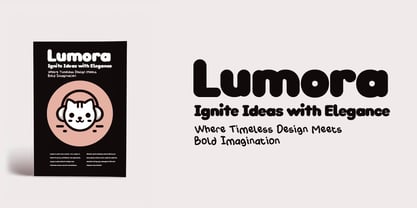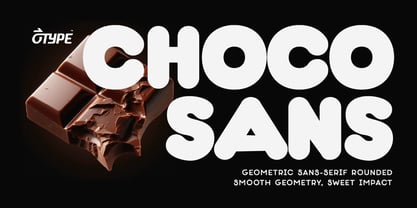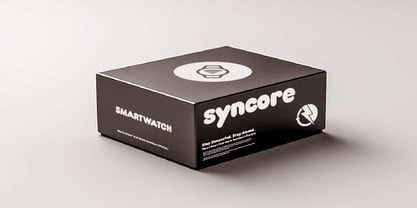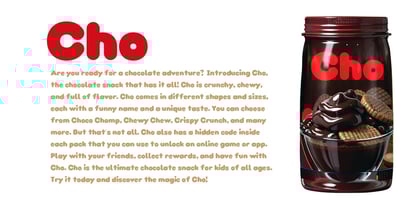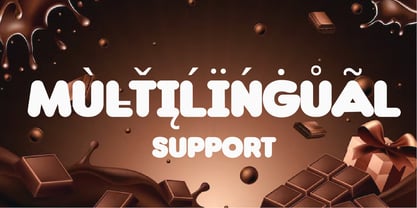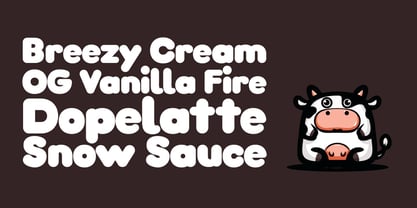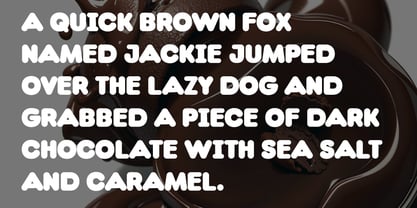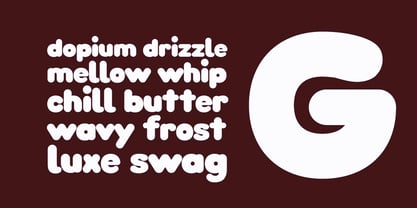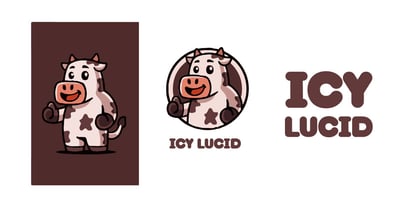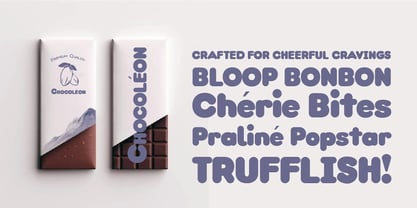
Choco Sans O
The Choco Sans O Font Family was designed by Galang Persada and published by O Type Foundry. Choco Sans O contains 1 styles. More about this family
🍫 Choco Sans is a round geometric sans serif typeface that’s as sweet and satisfying as your favorite chocolate treat. With smooth curves, a bold silhouette, and a softly playful spirit, it delivers a delightful blend of friendly warmth and functional clarity to any design.
✨ Inspired by the irresistible world of chocolate packaging, snack branding, and children’s product labels, Choco Sans is made for joy-filled applications—from food and beverage packaging to kids’ books, digital games, social media graphics, merch, and playful logos. Its bubbly terminals and precise geometric build keep it legible at various sizes, while its spirited personality shines through in every letterform.
💡 What sets Choco Sans apart is its ability to feel both nostalgic and modern. It evokes the charm of childhood sweets while providing the reliability and polish expected in today’s visual branding. Whether you’re designing for a confectionery launch, a bright lifestyle brand, or a whimsical campaign, Choco Sans adds a layer of irresistible charm and confidence.
🔑 Key Features: Soft and rounded sans serif personality
Clean, balanced geometry with a contemporary twist
Fun yet professional tone—perfect for playful branding
Exceptional legibility in headlines, packaging, and signage
Pairs delightfully with minimalist sans serifs and airy scripts
🎨 Part of the O Type Foundry collection, Choco Sans complements other rounded and geometric fonts in the catalog, offering stylistic harmony for broader systems and branding suites.
Bring joy, flavor, and character to your next design with the tasty charisma of Choco Sans.